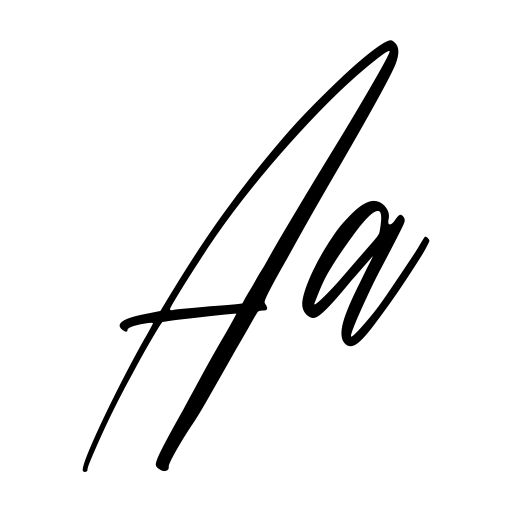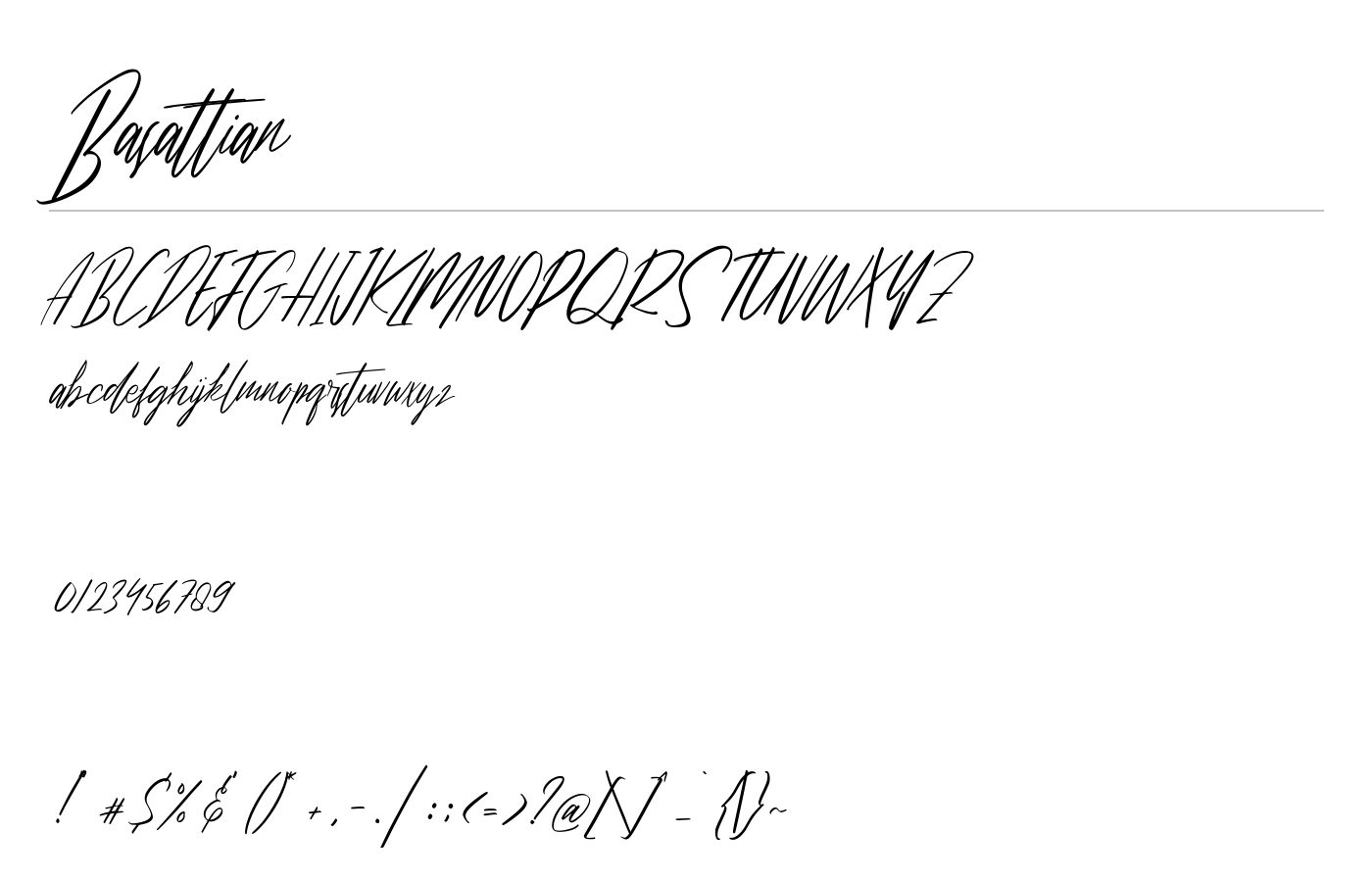
Basattian is a slender, elegant script font with a modern handwritten style that features sharp, flowing strokes and a natural, casual rhythm. Its tall, narrow letterforms with a high x-height and consistent light weight make it perfect for adding a sophisticated yet personal touch to invitations, branding, and stylish editorial designs. This font works best where a delicate, artistic feel is desired, especially in logos, fashion packaging, and expressive headlines.
Basattian Font
About Basattian Font
| Font family | Basattian Font |
| Designer | Fannan Studio |